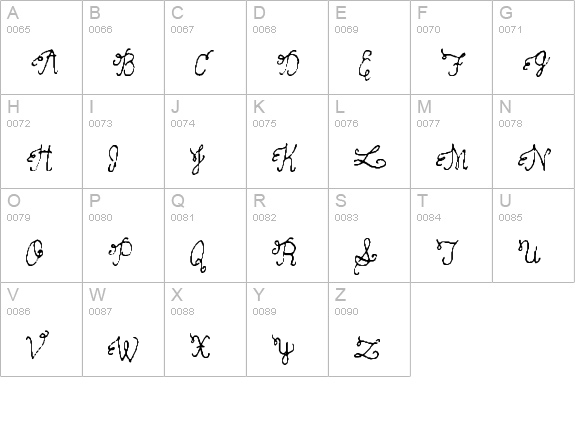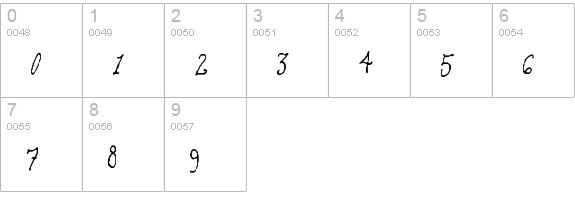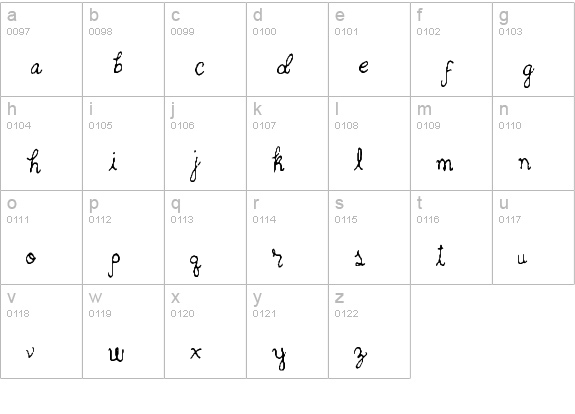
Introducing Romantique, an exquisite and effortlessly elegant font that will add a touch of romance to any design project. With its delicate curves and intricate details, Romantique captures the essence of true love and passion. This font is perfect for any occasion that calls for a touch of sophistication and charm. Whether you're designing wedding invitations, love letters, or heartfelt messages, Romantique will effortlessly convey your emotions and create a truly memorable experience. But that's not all – Romantique is not only breathtakingly beautiful, it is also free! Yes, you heard that right. This stunning font is freely available to download at FontsMarket.com. We believe that love should be shared, and what better way to express it than by offering this incredible font for free. So go ahead and let your creativity soar with Romantique. Whether you're a professional designer or simply someone who wants to add a touch of romance to their everyday life, this font is sure to captivate hearts and leave a lasting impression. Download Romantique today from FontsMarket.com and let love take center stage in your designs. Don't miss out on this incredible opportunity to bring an enchanting touch to your projects – for free!